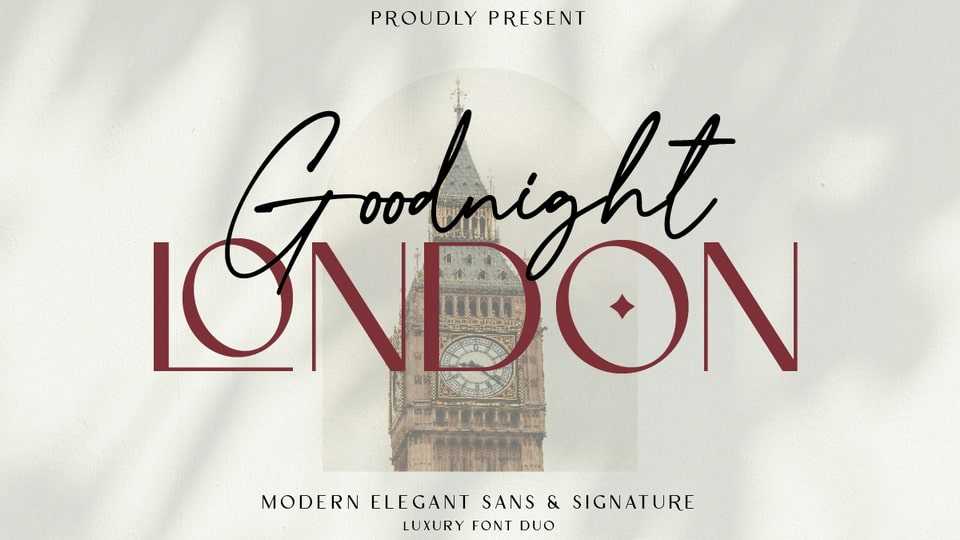
Download Goodnight London typeface, a blend of 2 fonts, namely the sans and script. Goodnight London is a luxurious font, with thick and thin sizes with a combination of handwritten script, so that it adds an elegant, luxurious and classy impression.